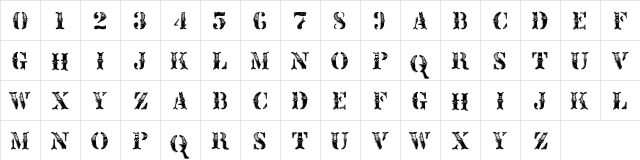
Fusty Saddle Regular Font Preview
Fusty Saddle Regular
Design Context for Fusty Saddle Typeface
Fusty Saddle is a composed and adaptable typeface that performs quietly and consistently across a wide range of design contexts.